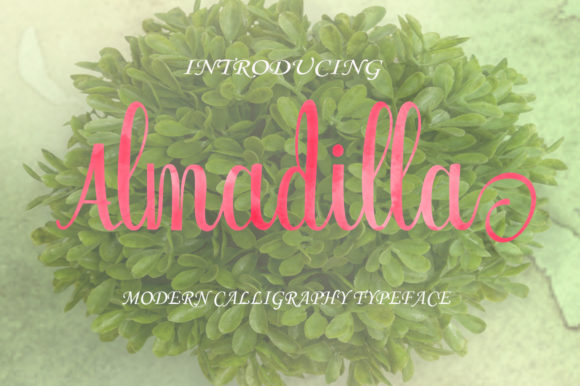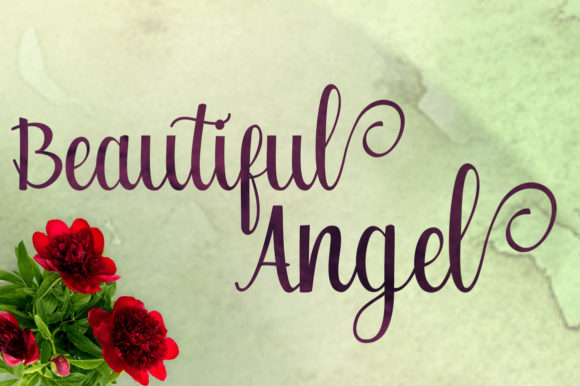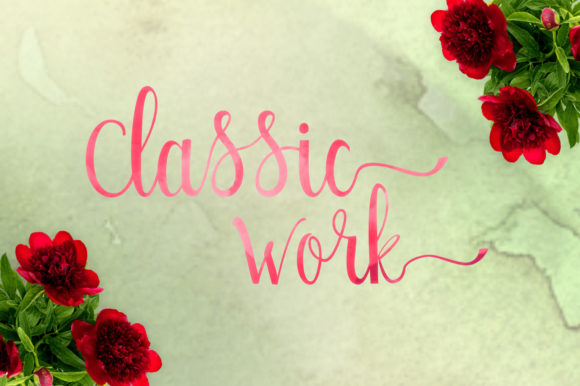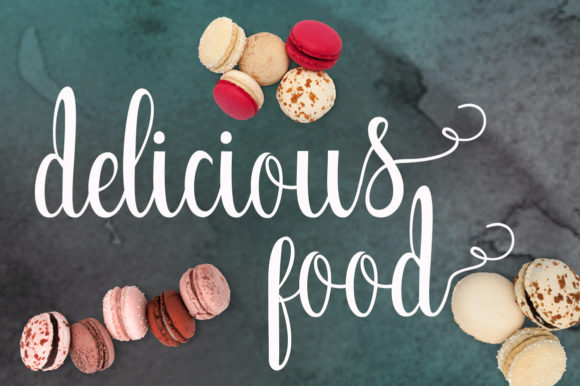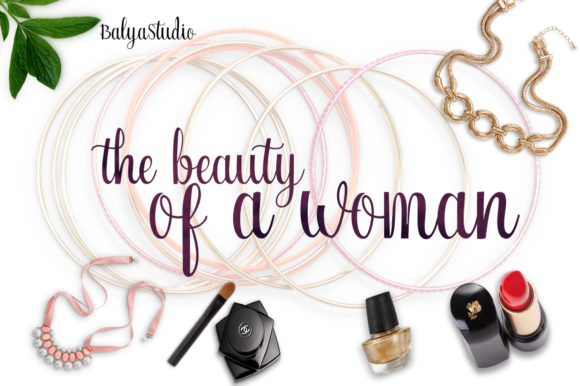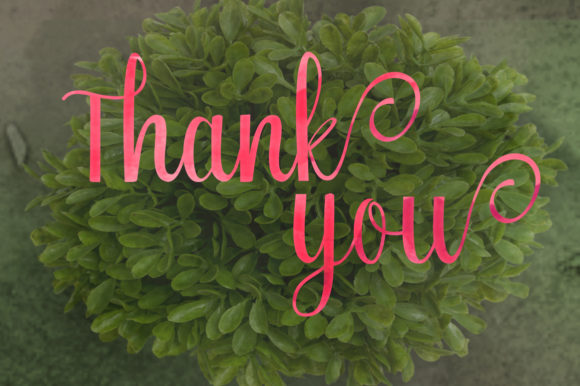
Almadilla Font
About Almadilla Font
The Almadilla is a handwritten calligraphy font. It has an elegant and unique look and is perfect for adding a natural touch to your designs.